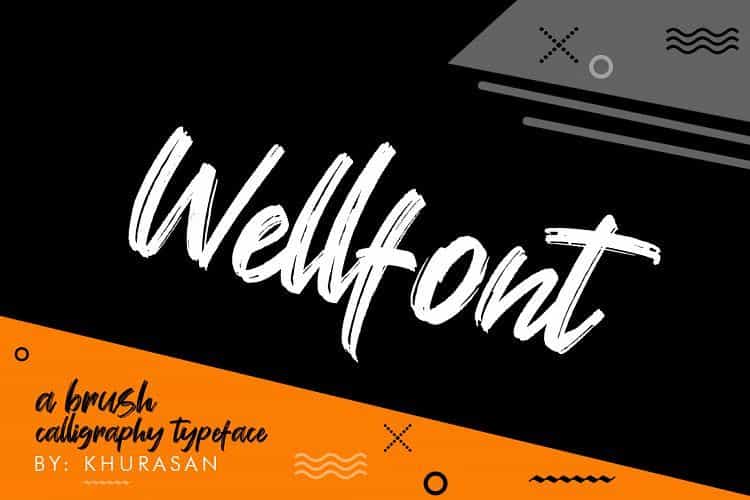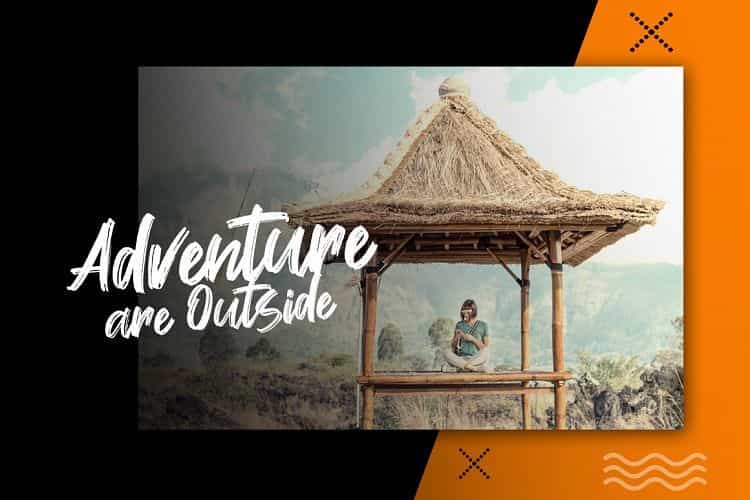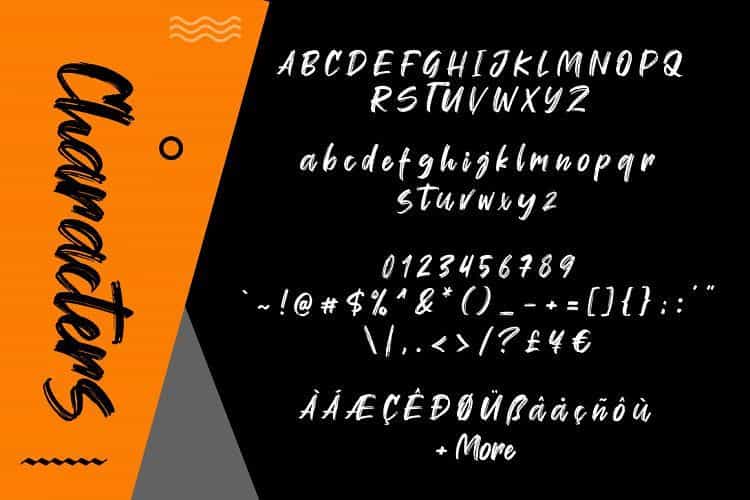
Hello Font Lovers..!! A special font this time called Wellfont Brush Font. A font that is an elegant script with Impressive characters and beautiful flow with a casual, vintage feel. Wellfont font is perfect for logotype, website header, fashion design, wedding card design, social media posts, advertising banners, and t-shirt design. Can be used for various purposes. Such as title, signature, logo, wedding invitation, t-shirt, letterhead, nameplate, label, bullet journal, you can use this font for your next project.